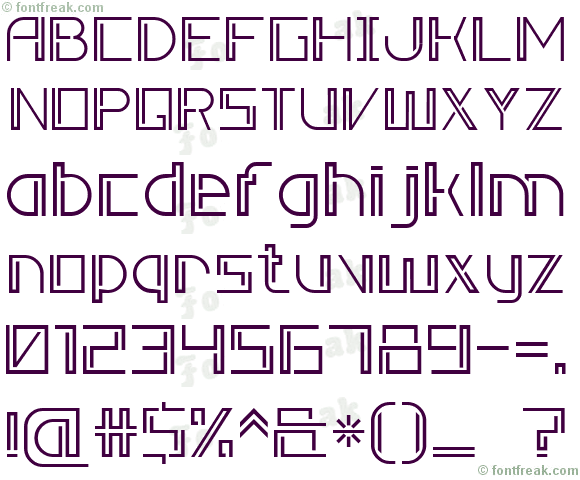
Double Line 7
About Double Line 7
Double Line 7 by Style-7 is a striking display font that merges modern aesthetics with a playful vibe, making it an excellent choice for a variety of creative projects. As a decorative font, it features a unique double-line style that sets it apart, enhancing its visual appeal without overwhelming the viewer. The stroke weight is consistent yet bold enough to capture attention, while the spacing between characters is carefully designed to ensure legibility in both large and small formats.
This font is particularly well-suited for eye-catching applications such as wedding invitations, where its distinctive character can add a touch of elegance. It can also be effectively utilized in movie posters, lending an air of drama and excitement. For restaurant menus, Double Line 7 can create an inviting atmosphere, drawing patrons in with its unique flair. Additionally, content creators can leverage this font in social media graphics to stand out amidst the noise of digital content.
What sets Double Line 7 apart is its ability to combine fun and professionalism in a way that resonates with a diverse audience. The double-line effect adds a layer of depth and creativity, while the overall design maintains clarity and readability. For anyone seeking a unique typeface, the Double Line 7 font free download offers an opportunity to elevate their design work with style and flair.